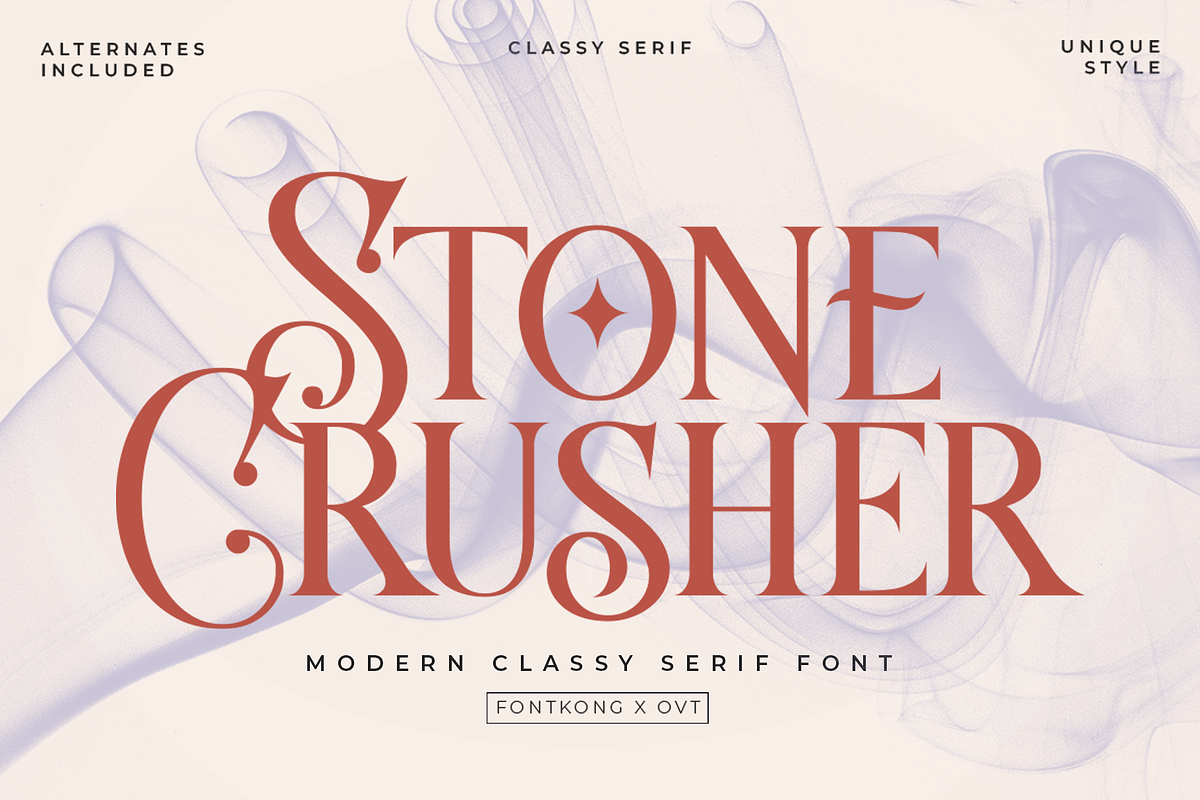
Stone Crusher - Modern Classy Serif Font Free Download is a bold and refined typeface that blends contemporary elegance with timeless serif strength. Perfect for luxury branding, editorial layouts, fashion campaigns, product packaging, and logo design, this font delivers a confident and upscale visual presence.
Its high-contrast strokes and sharp, clean lines give Stone Crusher a distinctive look that feels both powerful and sophisticated. Whether you're aiming for a high-fashion aesthetic or a modern corporate identity, this font adds a sense of authority and class to every project.